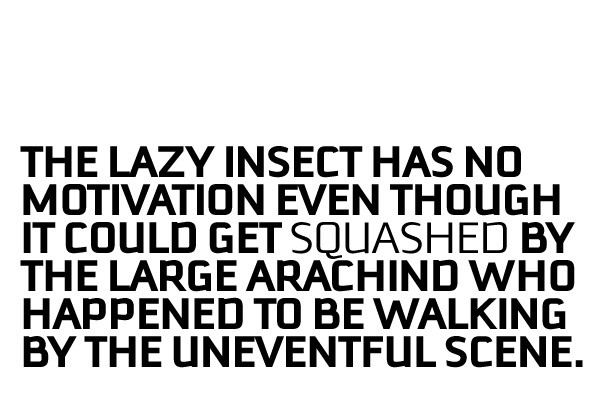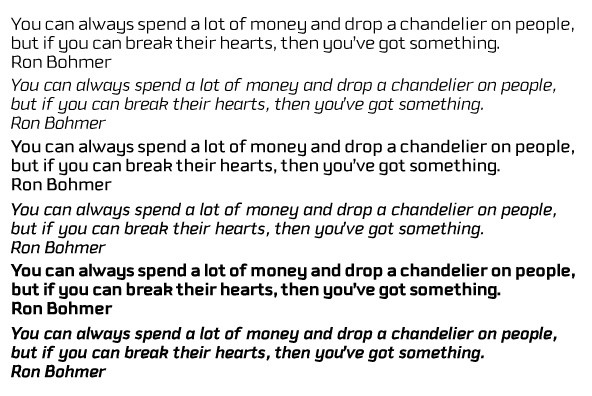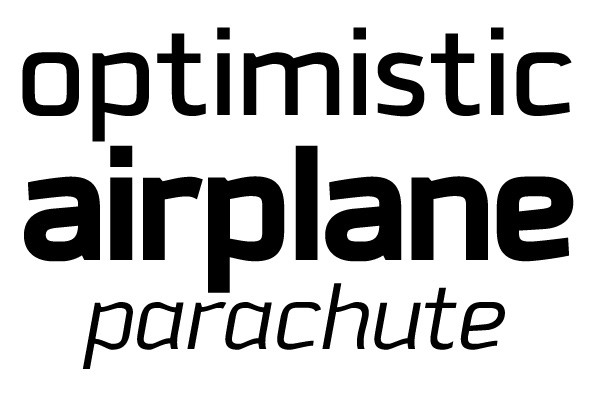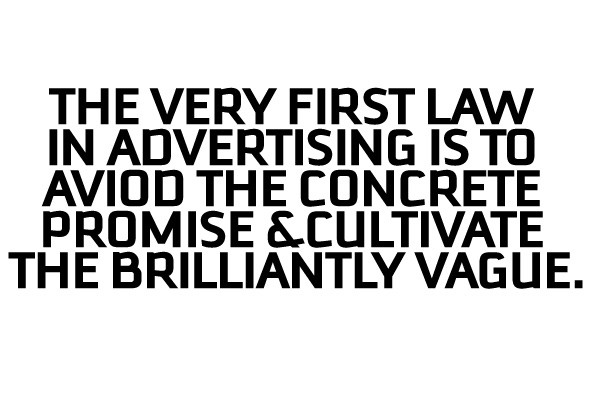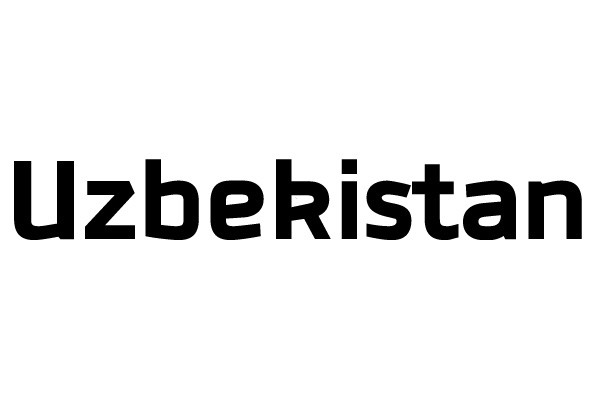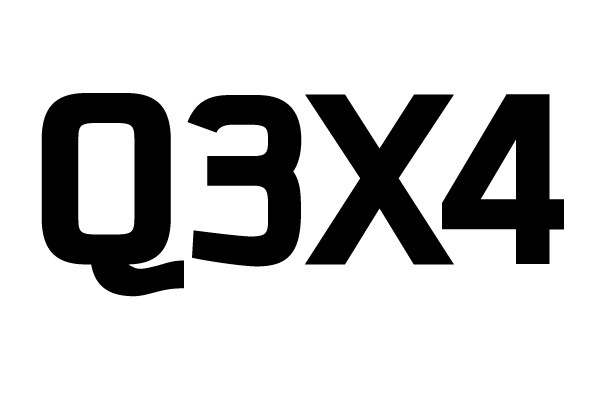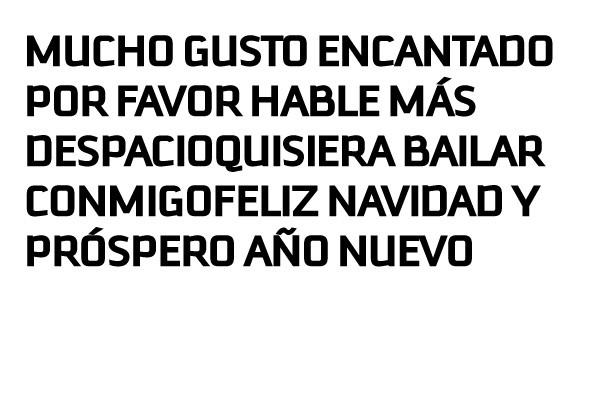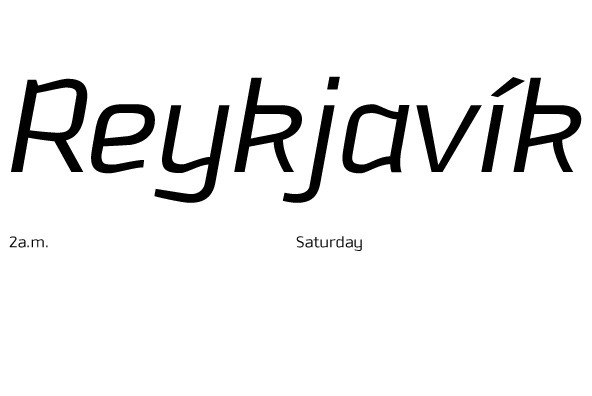
Downtempo is a 4-weight font family with some uniques characters including the ch ligature and some other Spanish language characters together with a really special italic style.